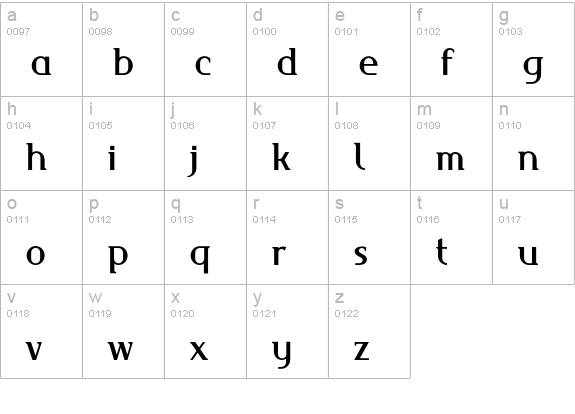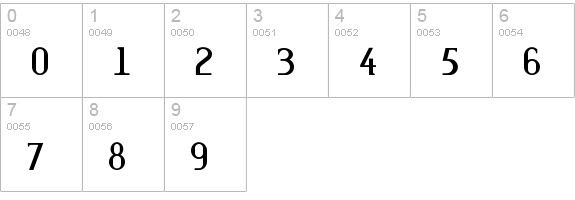
Maverick-Medium is a balanced, medium-weight variant in the Maverick typeface family \xE2\x80\x94 well suited to sub-headlines, navigation, and balanced editorial work.
Introducing Maverick-Medium font, a versatile and modern typeface that exudes confidence and sophistication. With its clean lines and stylish curves, Maverick-Medium is perfect for a wide range of design projects, from branding to editorial design. This sleek and contemporary font strikes the perfect balance between professionalism and creativity, making it an ideal choice for both digital and print applications. Its medium weight adds a touch of elegance to any text, while maintaining excellent readability across various mediums. Best of all, Maverick-Medium font is available for free download at FontsMarket.com. Don't miss out on this opportunity to elevate your designs with a high-quality, free font that will surely make a statement. Download Maverick-Medium today and see the difference it can make in your projects.